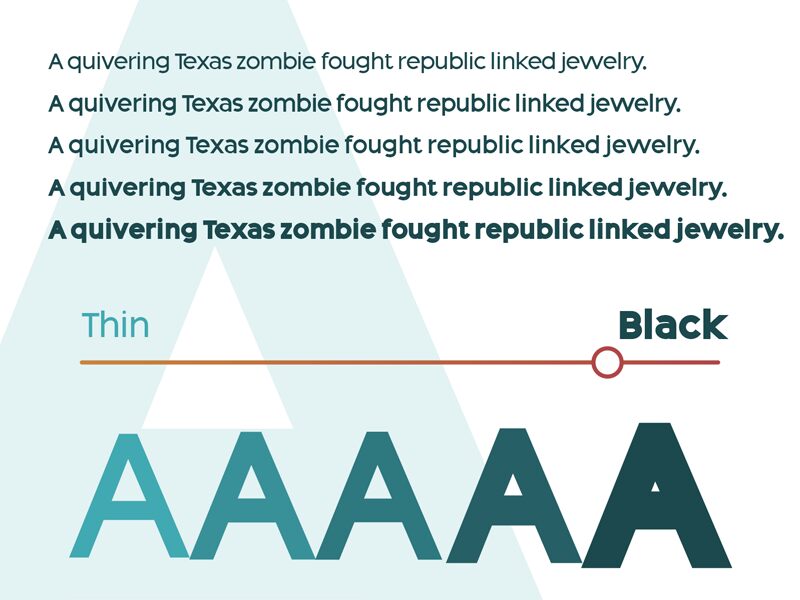
Introducing Area Neu, the bold and dynamic sans serif font designed by Nuryanto Dwi. With its clean lines and contemporary style, Area Neu is perfect for projects that require a strong and modern look. Use it for branding materials like logos, business cards, and packaging design to create a powerful visual impact. Its bold weight makes it particularly suitable for headlines, titles or any text that needs to stand out. Whether you're designing a website or a print publication, Area Neu will add an energetic vibe to your project that is sure to catch the eye of your target audience.